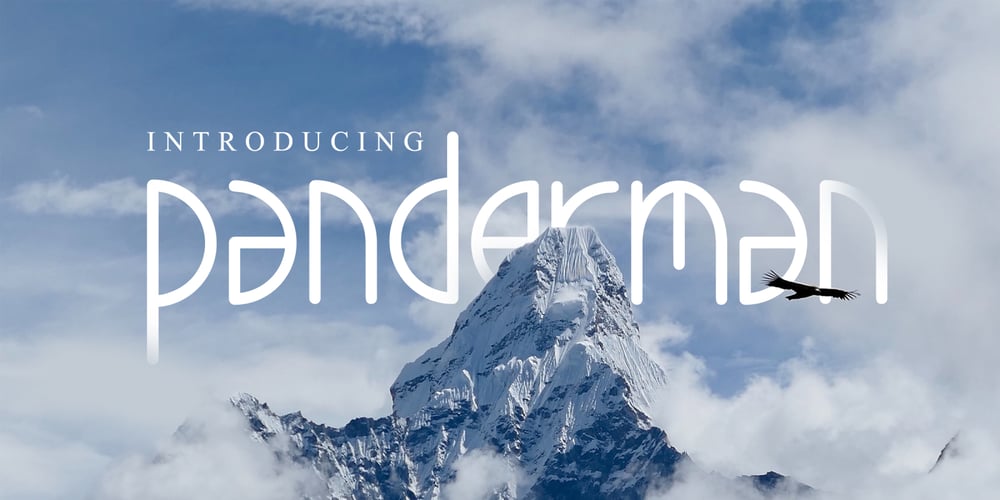
Panderman Font Family was designed by Khusnul Ulum and published by theulum studio. Panderman contains 4 styles and family package options. panderman is a simple modern san serif font with 4 font styles. Simplicity and modernity are the basis for making this font. Perfect for branding, logos, invitations, mastheads, and more.The panderman also includes the full set: Uppercase and Lowercase Multilingual Symbol Number Punctuation Alternative multilingual 4 font styles (Regular, Italic, Bold, & Bold Italic) Hope you enjoy our fonts and if you have any questions feel free to message & I’m happy to help.Thank you.